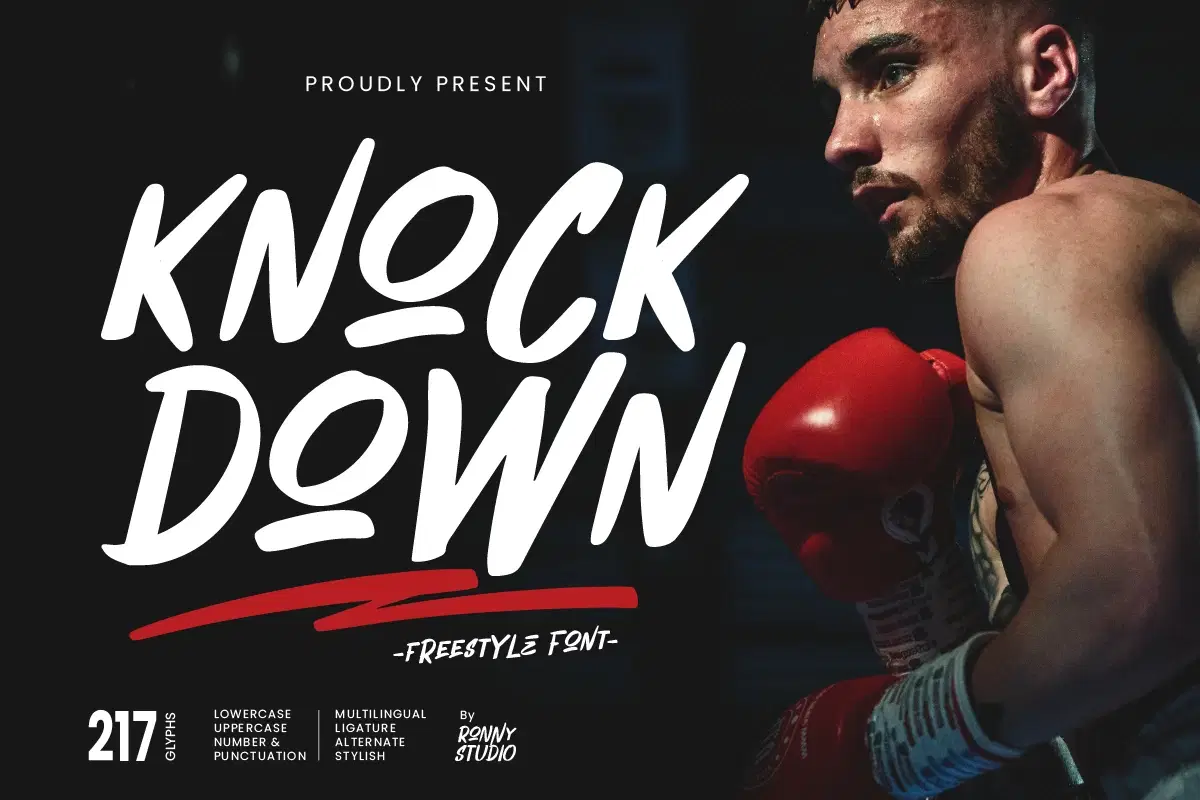
Knock Down is a modern freestyle handwriting font with a casual, expressive, and energetic style. Designed to look like natural handwriting, this typeface adds a personal and authentic touch to any project. With its dynamic strokes and versatile shapes, Knock Down makes every word stand out with character and creativity.
Expressive Handwriting Style – Inspired by natural, freehand lettering.
3 Complete Styles – Regular, Italic, and Outline for maximum flexibility.
Full Character Set – Uppercase, lowercase, numbers, punctuation, ligatures, alternates & swashes.
Multilingual Support – Works across multiple languages.
Logos & Branding – Add a warm and personal touch to your identity.
Posters & Magazines – Create bold, eye-catching headlines and editorial designs.
Packaging & Merchandise – Stand out with stylish product labels and packaging.
Social Media & Quotes – Make your Instagram, Pinterest, and TikTok posts more engaging.
Events & Invitations – Great for wedding invitations, flyers, and creative events.
With Knock Down – Freestyle Font, you can bring personality, energy, and authenticity into your designs—whether for branding, digital content, or print projects.